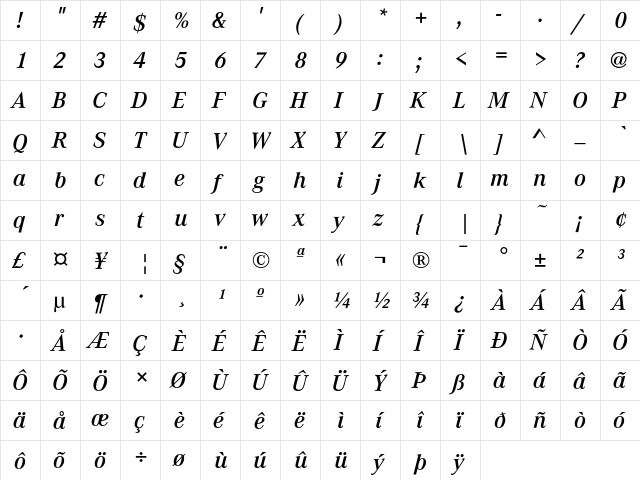
CorporateA DemiItalic
Design Context for CorporateA Typeface
CorporateA takes a measured approach to typography — its balanced proportions and neutral character make it a reliable workhorse for both digital and print work. The slanted form adds forward momentum and visual energy.
Pro Tip: Try CorporateA for annotation and caption copy alongside an upright companion — the contrast in angle creates a dynamic but ordered typographic system.